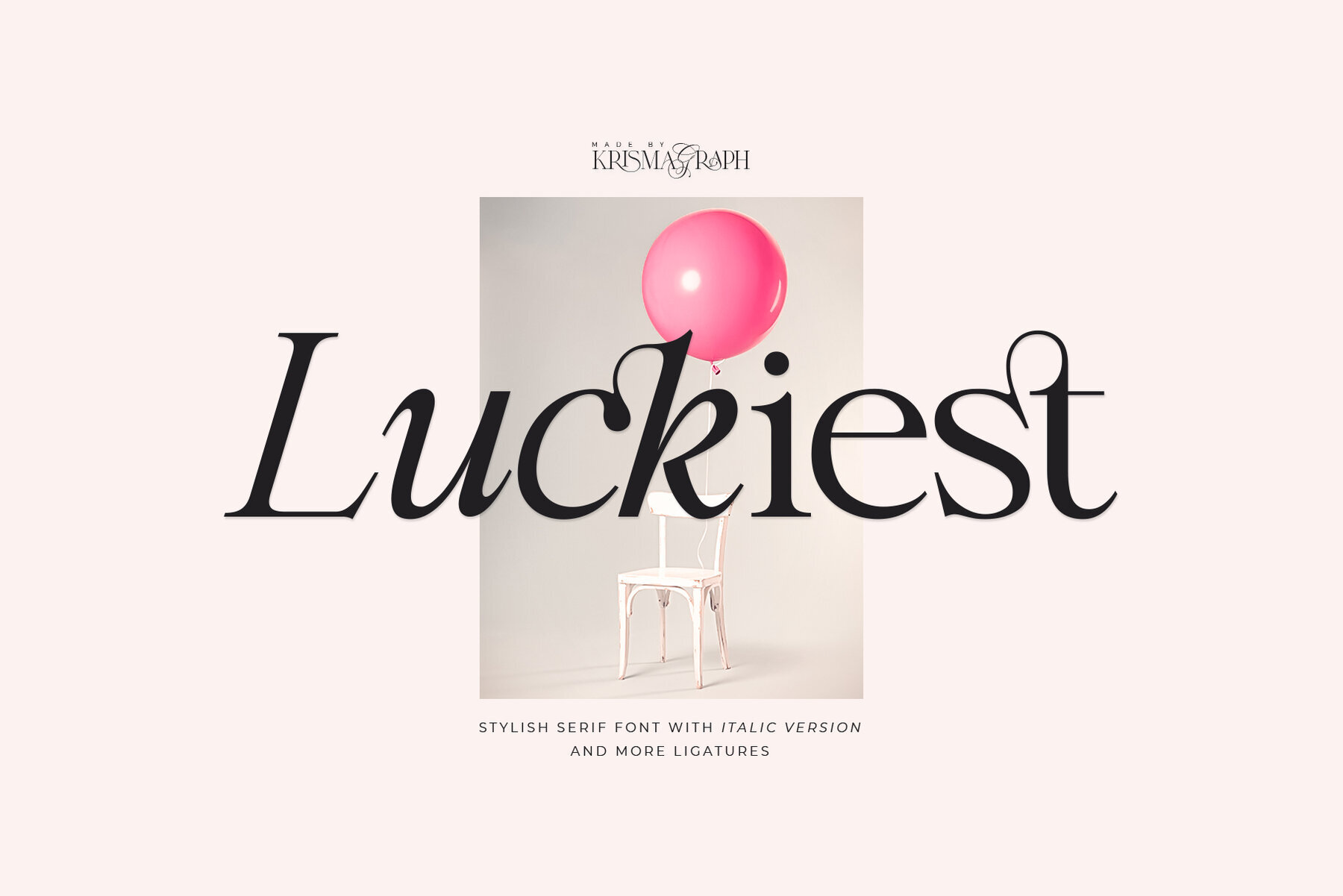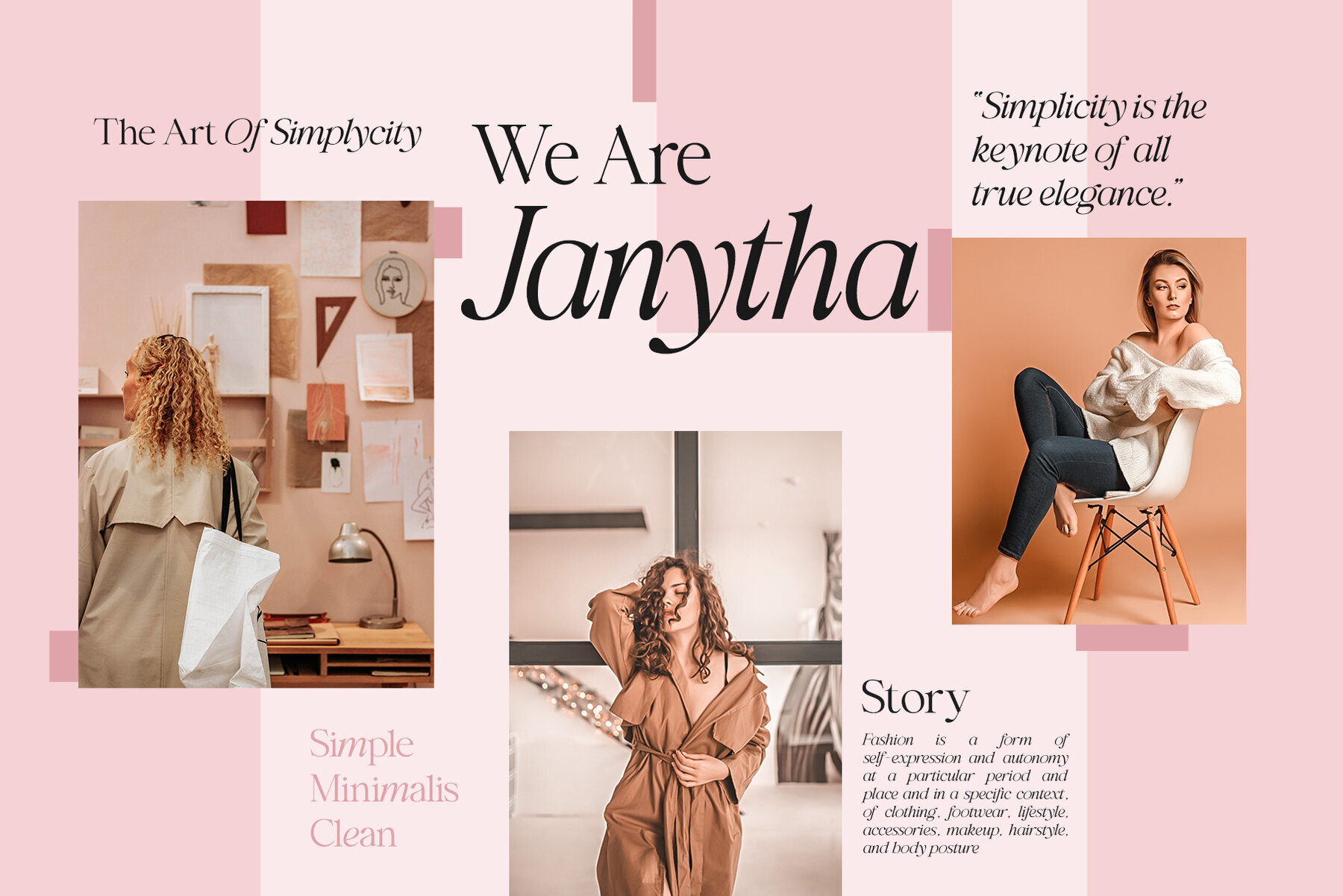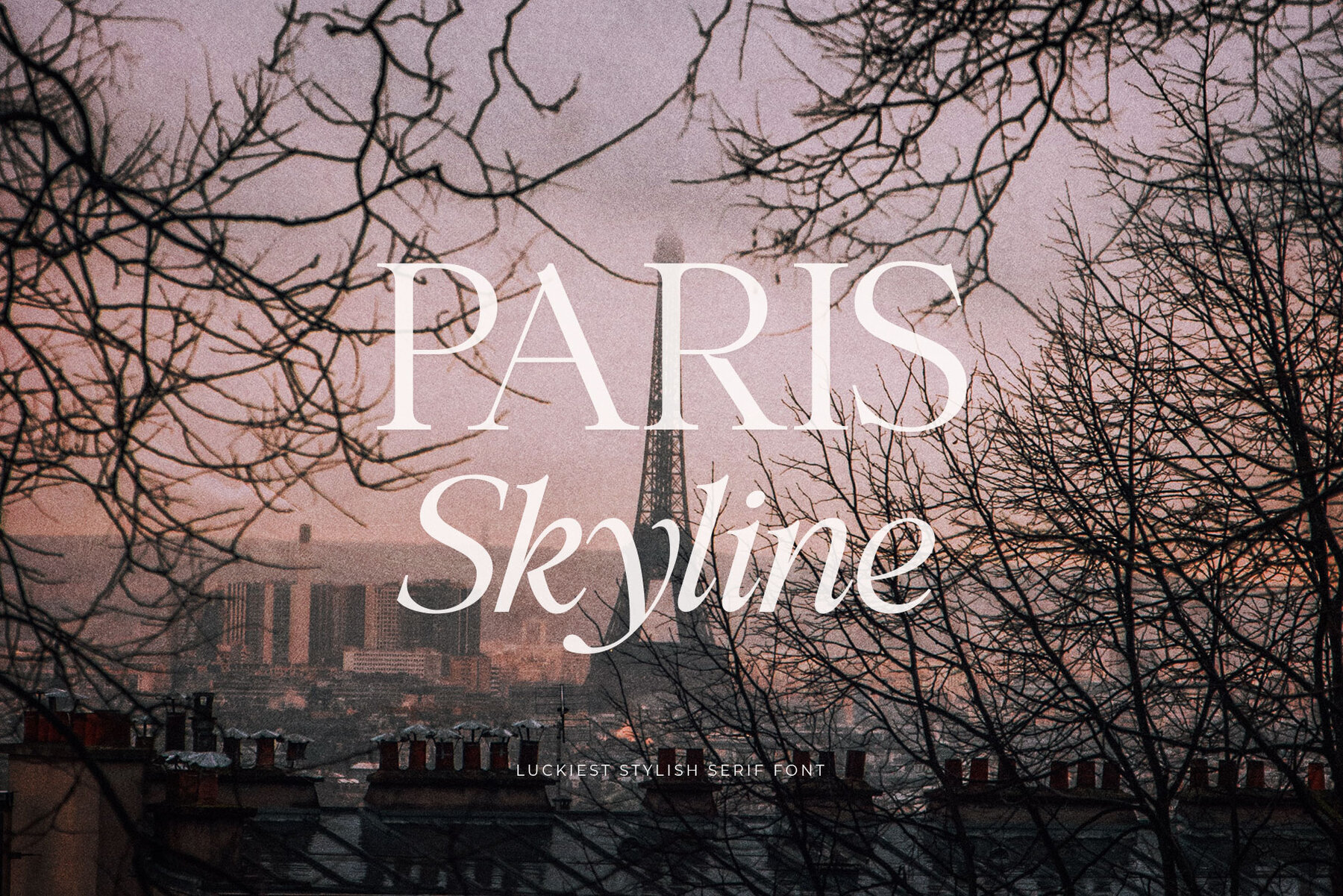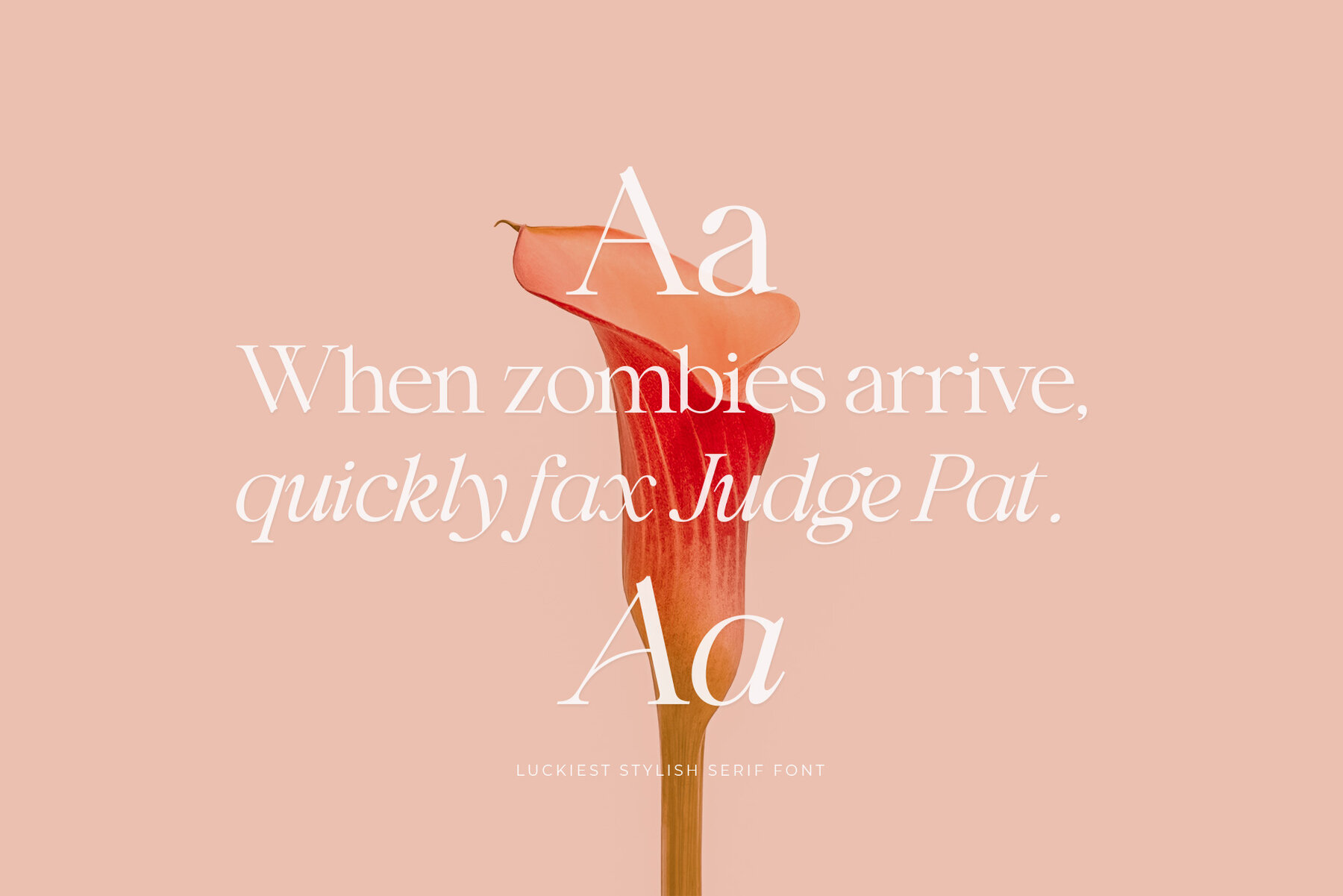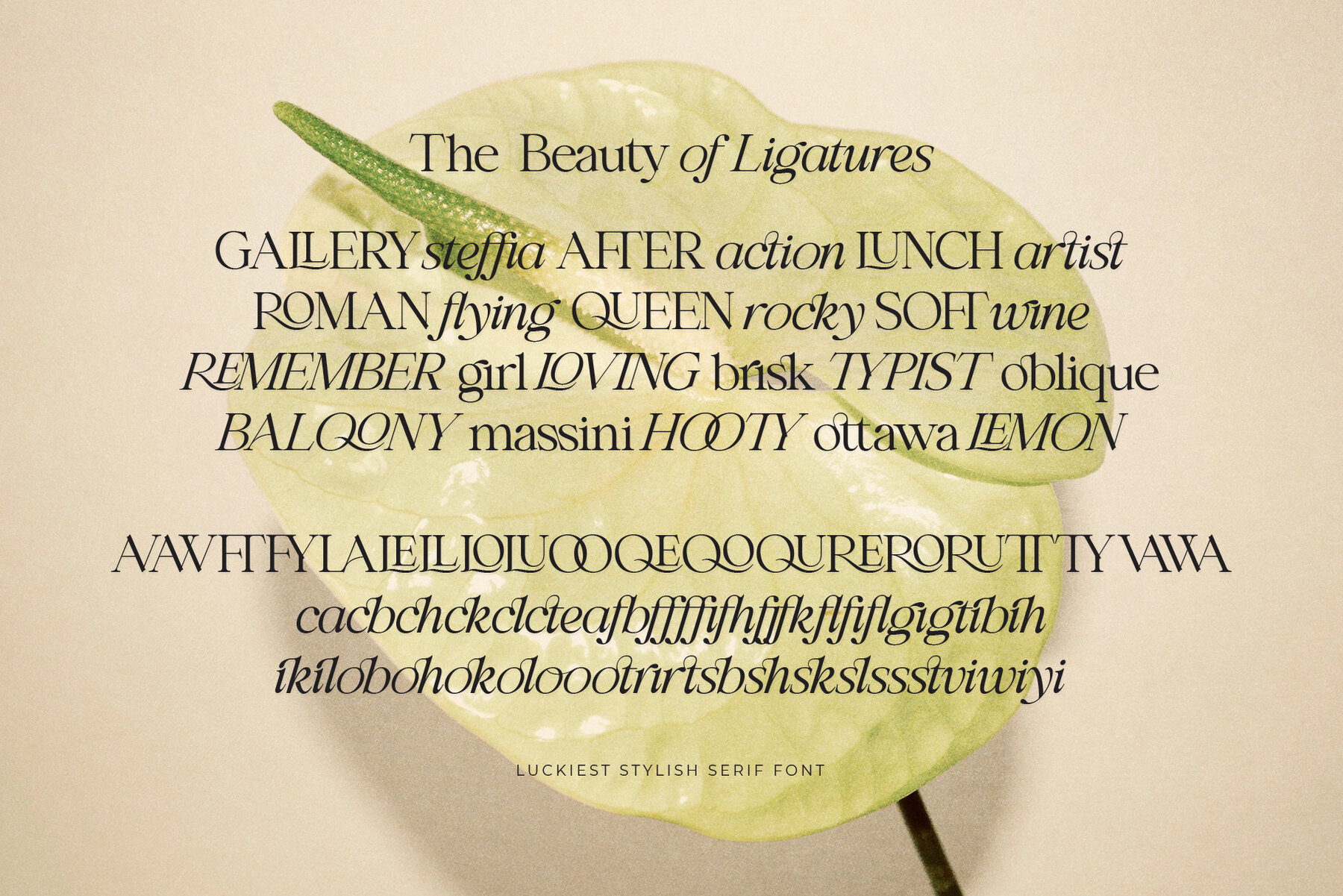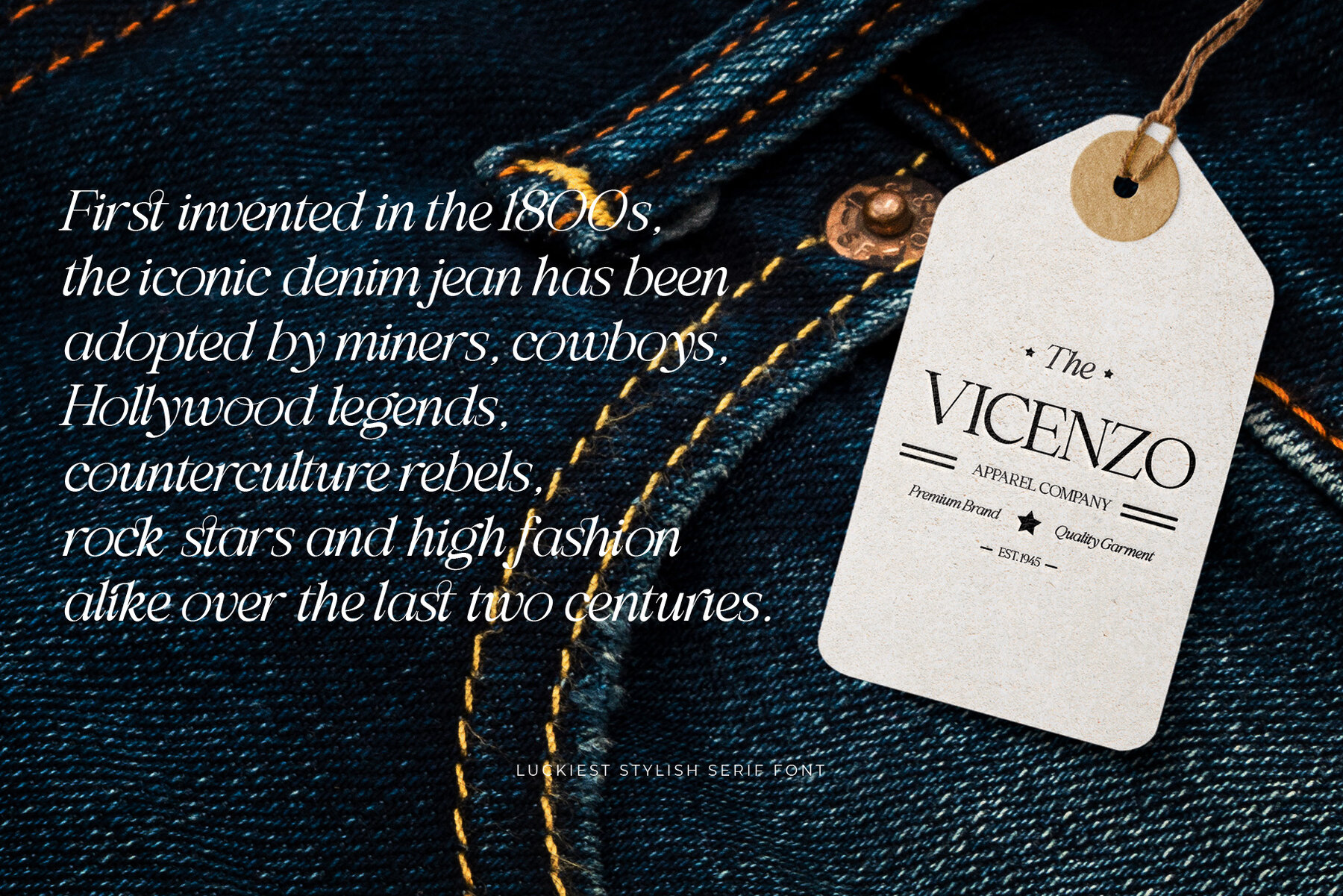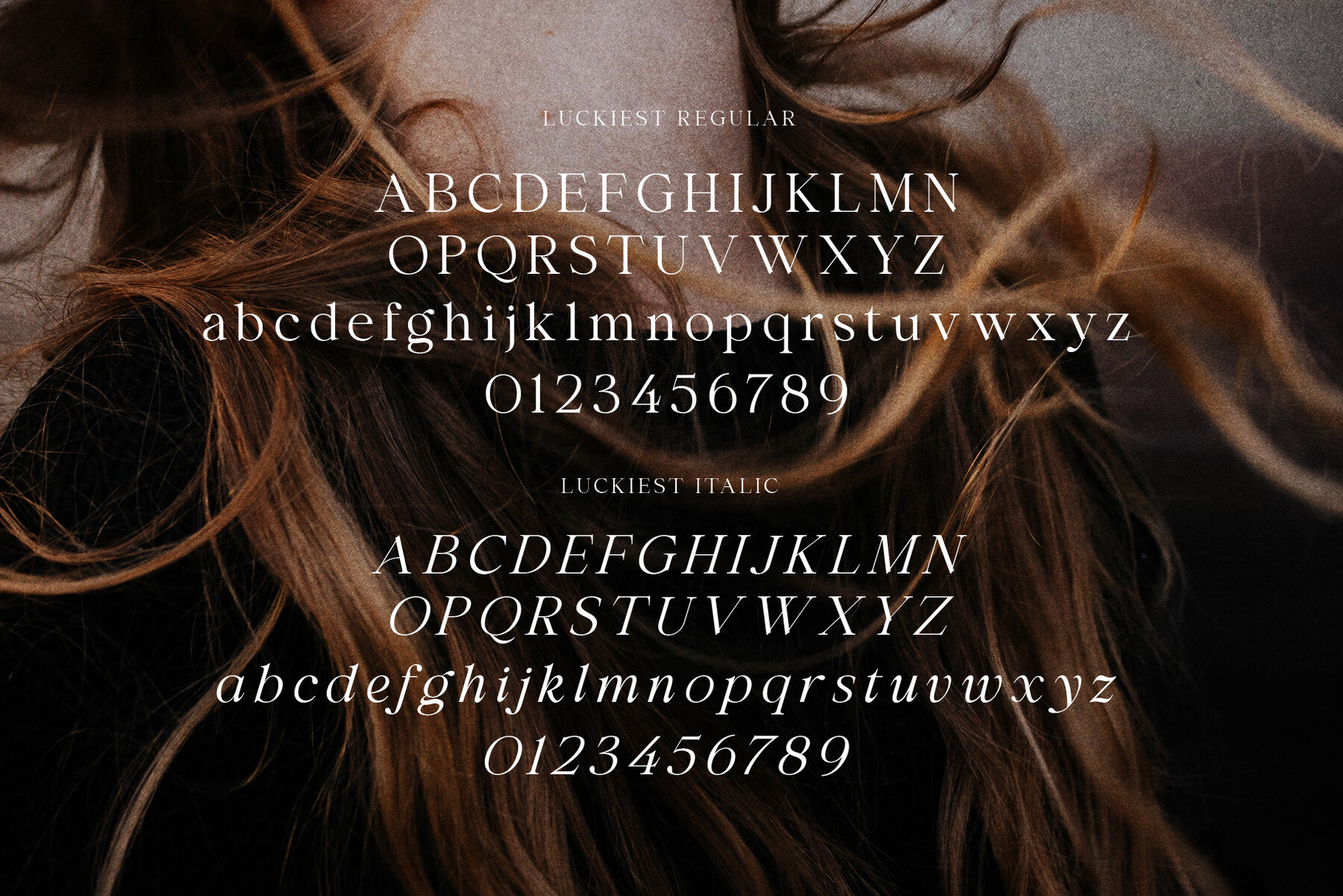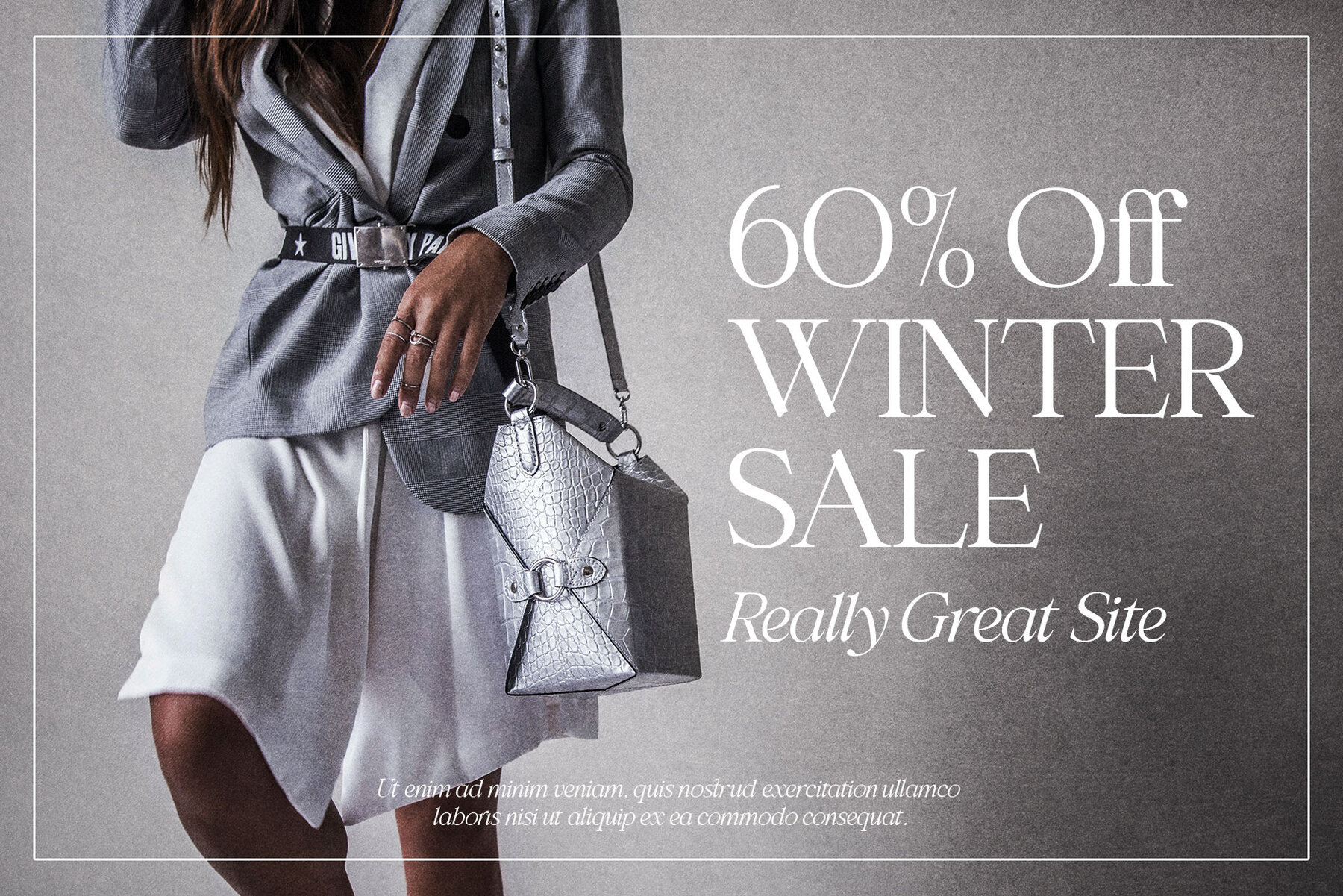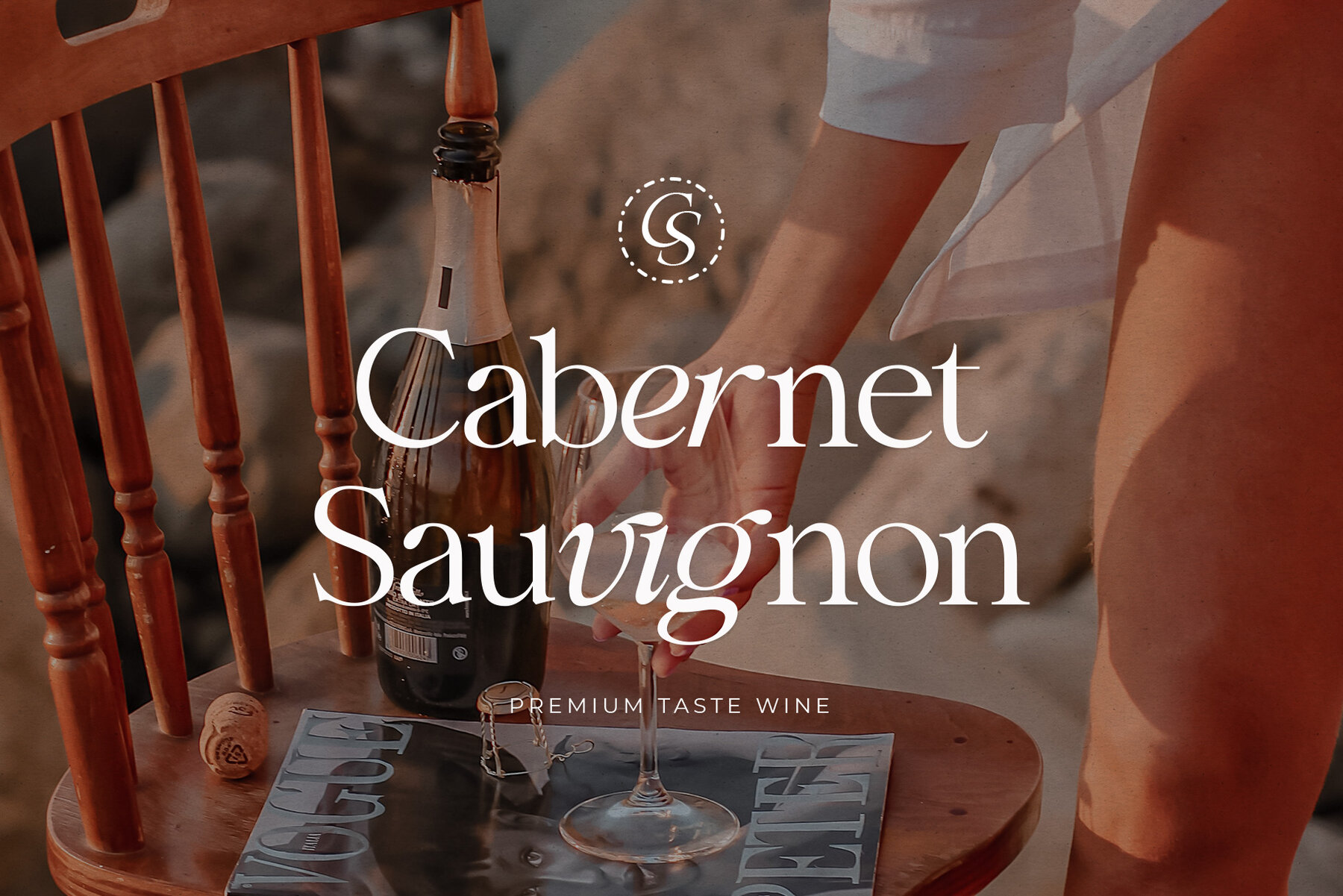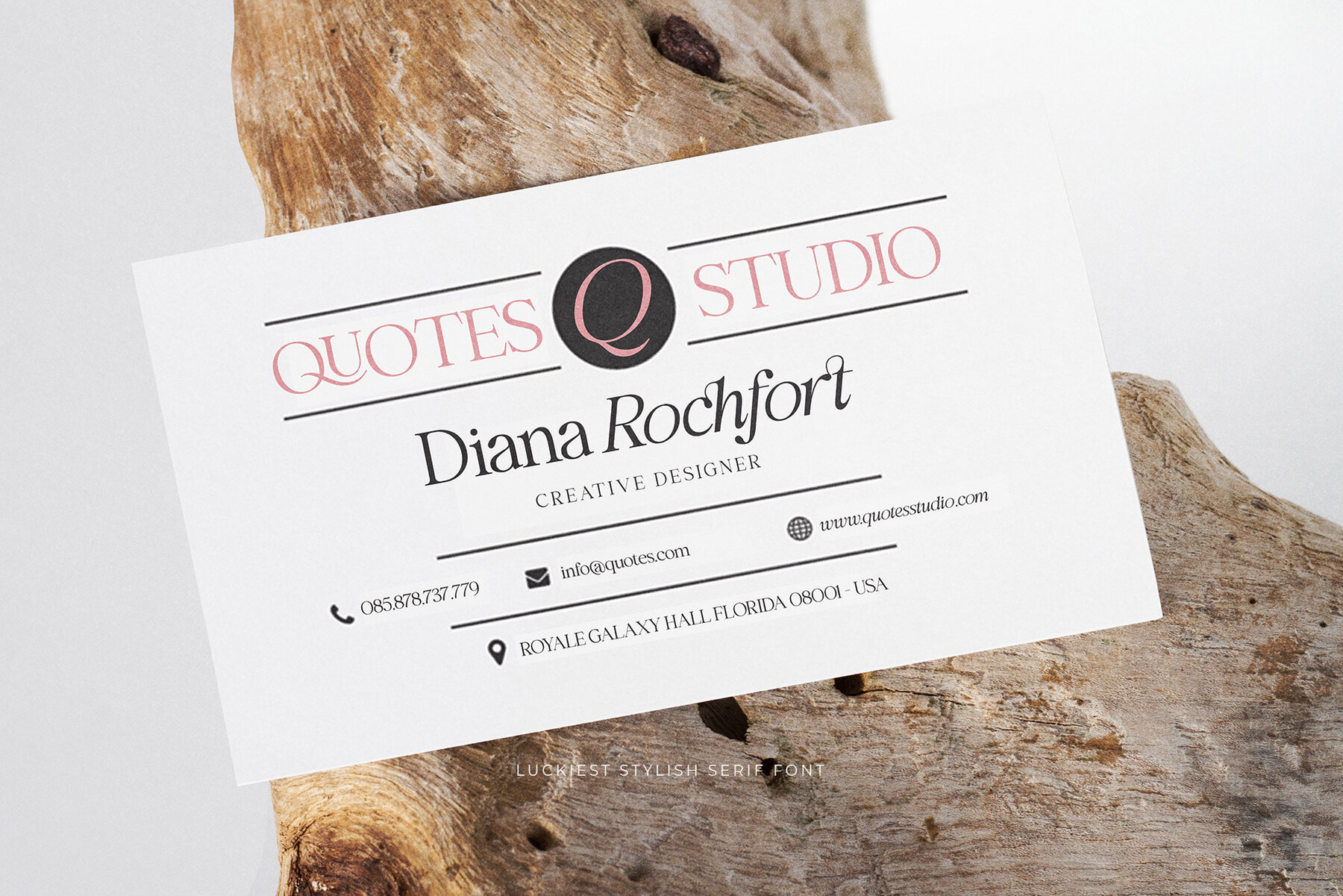
Luckiest Font
Discover Luckiest, a stylish ligature serif font designed to meet the demands of modern design aesthetics. Combining soft curves with high-contrast glyphs, Luckiest offers a unique fusion of feminine sophistication and masculine strength. Available in both Regular and Italic versions, this font is perfect for a broad range of applications, from headlines and logos to magazines and invitations. Luckiest invites you to explore its grace in branding projects or enhance your next creative endeavor with its unique dynamics.Luckiest: Stylish Ligature Serif with Versatile Appeal